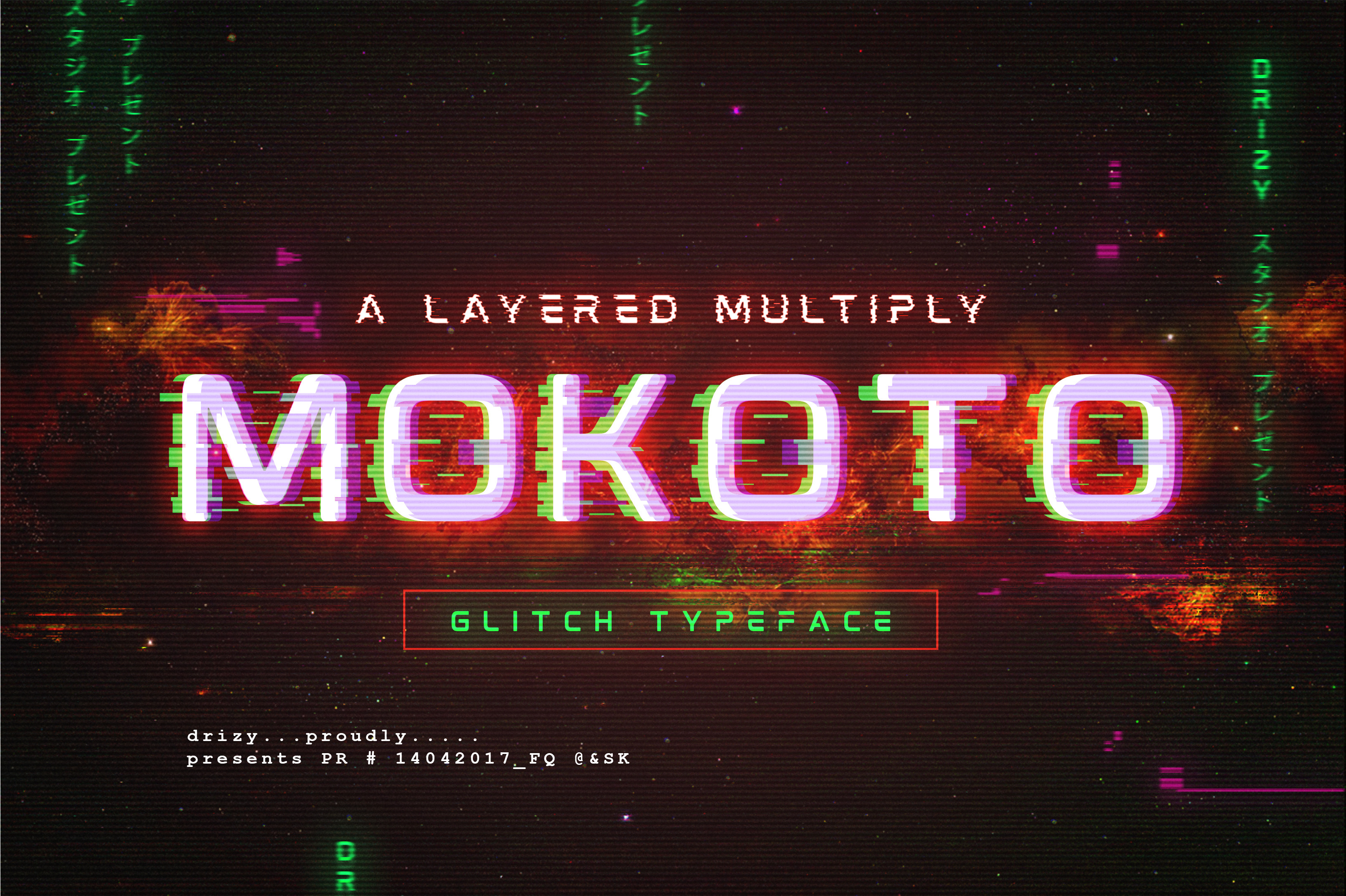
Introducing a new layered multiply typeface called Mokoto !! Mokoto is an experimental font that gives the appearance of digital glitching effect !! Inspired from modern fonts and slicing image in error system, to create something different and compelling.
This font makes way for the creativity of each and every one. You can easily add your text using the font layer. Mokoto contains 4 font layer (Regular, Glitch Mark I, Glitch Mark II, and Glitch Outline Regular). You can customize the layer to your need. Modify, give it colors and blending to instantly give futuristic feel and glitch effects.
Mokoto is the ideal display or lead font for designs web, print projects, contemporary posters, forward looking motion graphics, video game, cover CD Album, and other items like logos, poster/ flyer, branding, packaging, pictograms, etc.
I love this font but I can tell it's going to take a while to go from blank artboard to something that resembles the first image on the sales page. Honestly, loose how-to would help tremendously. I would have given it five stars except, for some reason, the kerning of the outline font doesn't match the rest of the font styles so now I need to either line up each letter one-by-one or fiddle with the overall kerning and see if I can get it to overlap correctly.